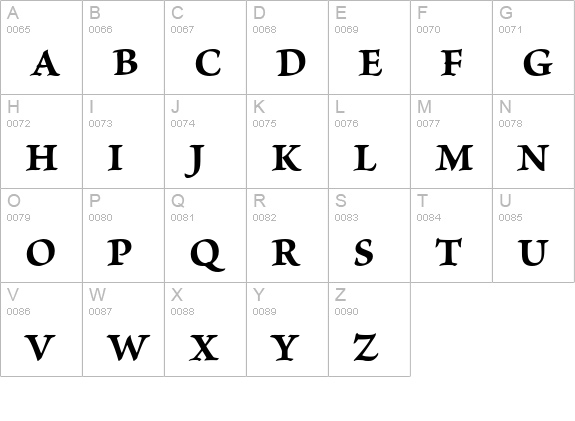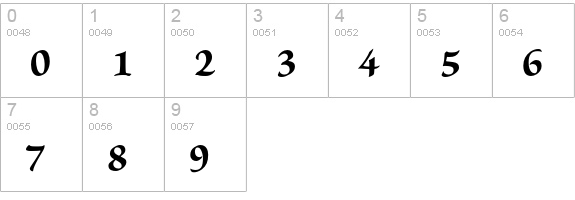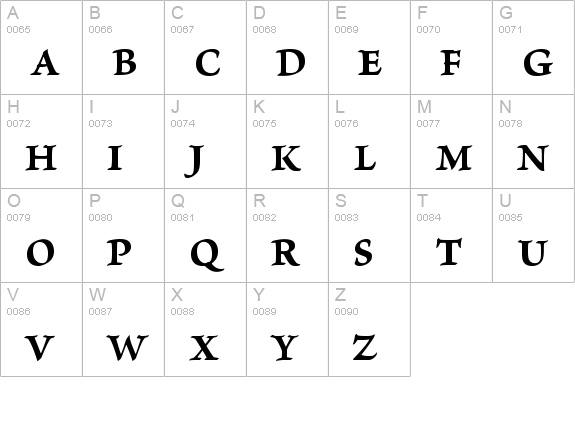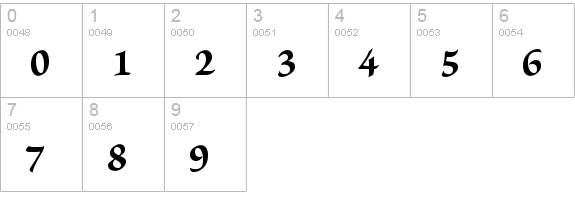
Brioso Pro Bold Caption is a strong, high-contrast variant in the Brioso typeface family \xE2\x80\x94 well suited to headlines, attention-grabbing titles, and strong calls-to-action.
Brioso Pro Bold Caption is a modern and versatile font that exudes sophistication and professionalism. With its bold and eye-catching design, this font is perfect for creating impactful captions and headlines that demand attention. The sleek and elegant curves of Brioso Pro Bold Caption add a touch of elegance to any design project, making it ideal for a wide range of applications. The best part? Brioso Pro Bold Caption is available for free download at FontsMarket.com, allowing you to enhance your designs without breaking the bank. Whether you're working on a creative project, a professional presentation, or anything in between, Brioso Pro Bold Caption is sure to elevate your work with its unique charm and style. Download this font today and add a touch of sophistication to your designs!